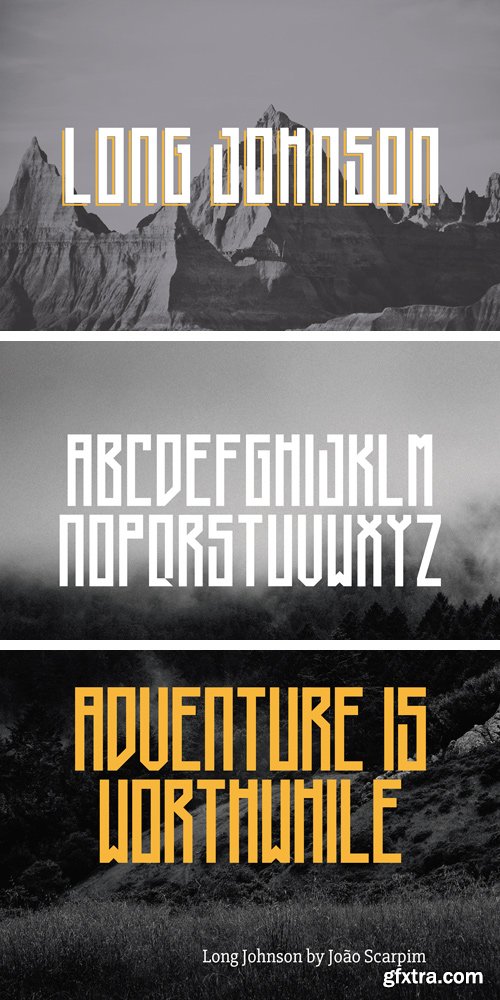
Long Johnson Font
Long Johnson is a considered font. It contains only uppercase letters. This font suites for display purposes like logos, headlines, signages, labels, posters and banners.